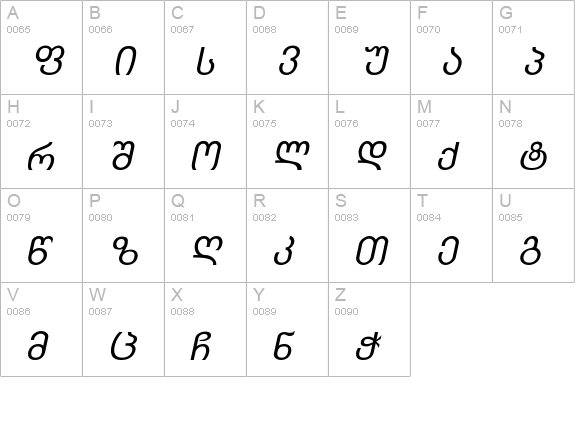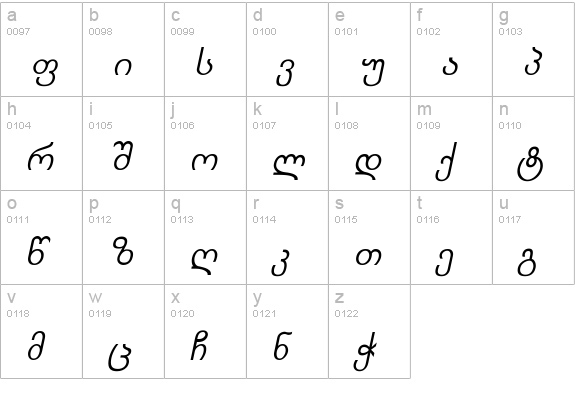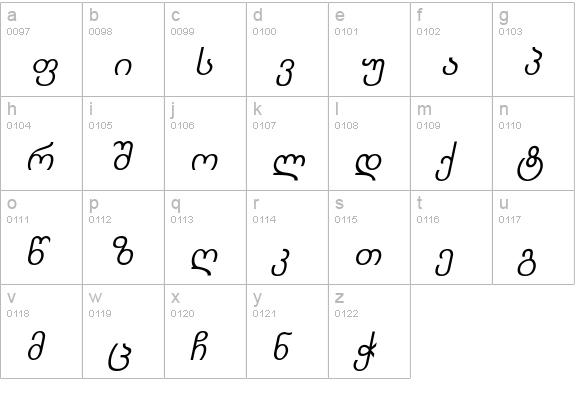
Kolkhety-ITV Italic Font Details
Kolkhety-ITV Italic is a distinctive, italic variant in the Kolkhety typeface family \xE2\x80\x94 well suited to design and typography projects.
Kolkhety-ITV Italic font is a sleek and modern typeface that exudes elegance and sophistication. Its italic style adds a touch of flair to any design project, making it perfect for adding a touch of class to your work. This font features clean lines and smooth curves that create a harmonious balance, making it a versatile choice for various design applications. What makes Kolkhety-ITV Italic font even more appealing is that it is available for free download at FontsMarket.com. This means that you can easily access this stylish font without any cost, making it a valuable addition to your font collection. Whether you're working on a branding project, a poster design, or any other creative endeavor, Kolkhety-ITV Italic font is sure to elevate your work with its sophisticated aesthetic. Download it today and unleash your creativity with this elegant and free font option.